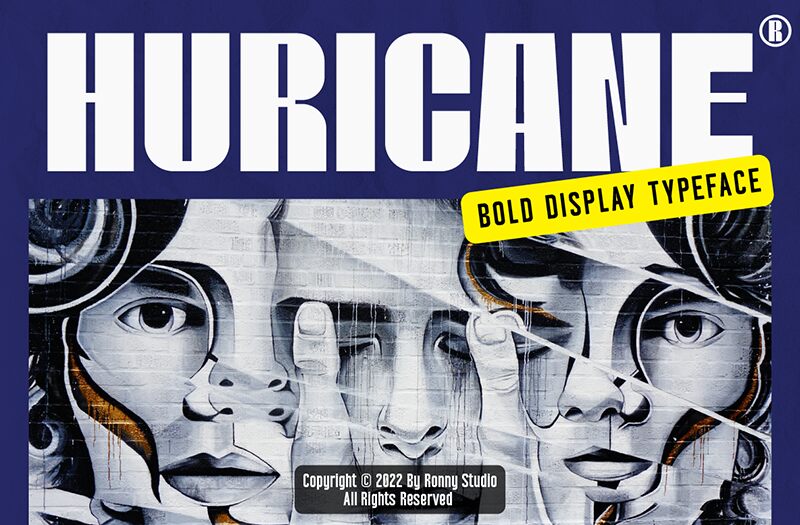
Huricane
Huricane emerges from the creative mind of Ronny Studio, bringing a sans serif with an extra-bold weight that captures attention and defines trends. This typeface boasts a futuristic aesthetic, making it an ideal choice for projects that require a touch of modernity and boldness. Its playful character and robust presence offer designers an expressive tool for crafting impactful logos, dynamic branding, or commanding titles.
With Huricane's versatility and strong personality, your creative endeavors will not only stand out but also resonate with contemporary audiences seeking designs that speak the language of innovation.